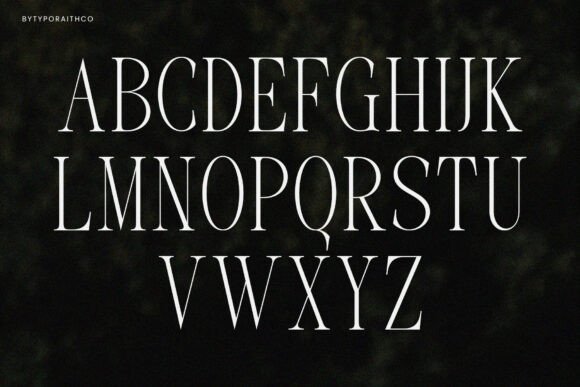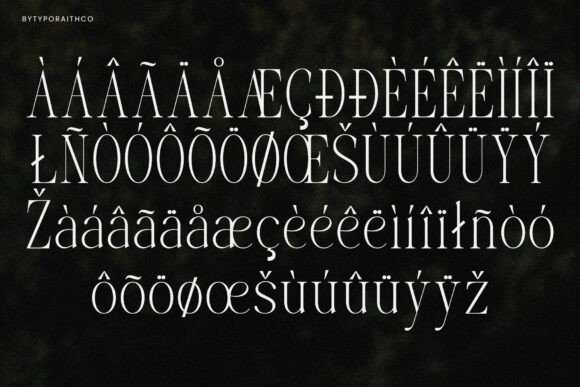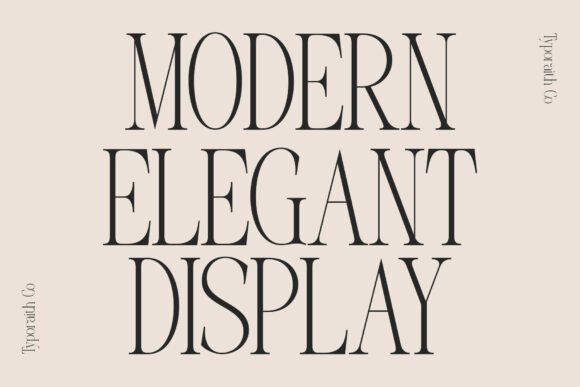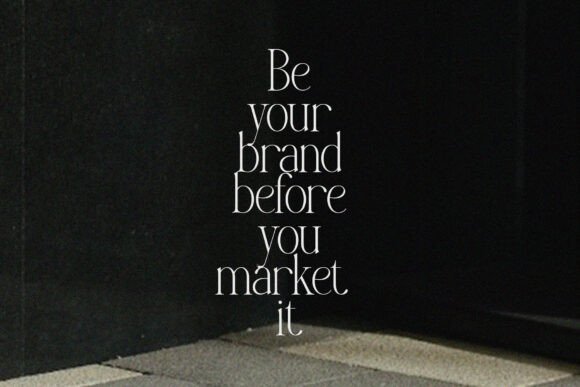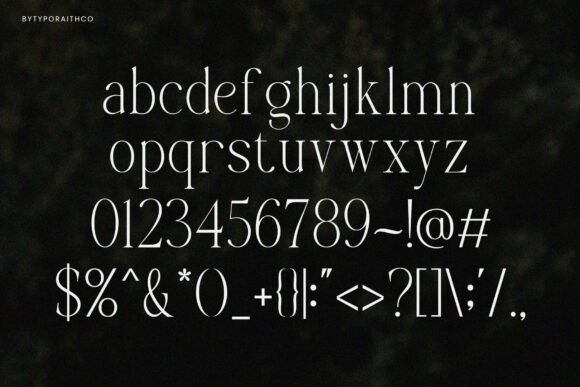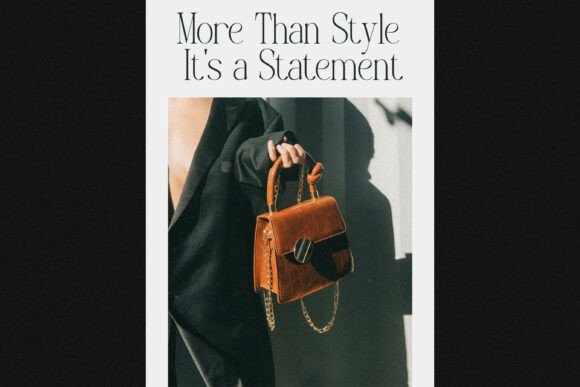
I still remember the countless hours I spent searching for the perfect font for a client’s luxury fashion brand. The project required a sense of sophistication and elegance, but every font I tried seemed to fall flat. That was until I stumbled upon Bevaloire, an elegant and stylish display serif font that instantly caught my attention. With its contemporary twist, Bevaloire has become a staple in my design toolkit, and I’m excited to share my experience with you.
An Honest Review of Bevaloire
• ✨ Elegant curves and high contrast strokes that exude luxury
• ✅ Artistic flair that adds a touch of sophistication to any design
• ⚡️ Perfect for editorial design, logos, packaging, fashion branding, and high-end projects
• 👍 Highly legible, even at large sizes
While Bevaloire is an exceptional font, there are a few minor quirks to be aware of:
• 🤔 Some users may find the font’s elegance and sophistication limiting for more playful or casual projects
• ⚠️ Bevaloire’s high contrast strokes may not be suitable for small font sizes or low-resolution applications
The Story Behind Bevaloire
Bevaloire was designed with the goal of creating a modern serif font that exudes elegance and sophistication. Inspired by the classic serif fonts of the past, Bevaloire’s designer aimed to create a font that would add a touch of luxury to any visual identity. With its high contrast strokes and artistic flair, Bevaloire is the perfect choice for designers looking to create bold and eye-catching designs.
Q: What is Bevaloire’s personality?
A: Bevaloire is an elegant and sophisticated font with a modern twist. It’s perfect for designers looking to add a touch of luxury to their designs.
Q: What is Bevaloire best used for?
A: Bevaloire is perfect for editorial design, logos, packaging, fashion branding, and high-end projects.
Q: Can I use Bevaloire for body text?
A: While Bevaloire is highly legible, its high contrast strokes may not be suitable for small font sizes or body text. It’s best used for headlines, titles, and other display text.
Q: Is Bevaloire a versatile font?
A: Yes, Bevaloire is a versatile font that can be used in a variety of design applications. Its elegant and sophisticated feel makes it perfect for luxury brands, fashion designers, and editorial designers.